Different fonts play a very important role in every design, so you can find millions of different styles of fonts online and some are really special, such as the pixel fonts we present in this carefully selected collection.
Thug Life
It’s a crafty and distinctive display font. With shapes of pixel-art, it’s masterfully designed to become a true favorite, it has the potential to bring each of your creative ideas to the highest level.
Micro
A modern pixelate font are prepared special for NFT, pixel style, game, or poster design needs that will add your value.
Ugly Byte
It is a unique pixel display font. The possibilities for this font are endless, you can use it for mobile apps, games, retro design projects and etc.
Flip Flop (Free)
If your design project is on the theme of hi-tech, computers, etc., then this cute free pixelated font will fit perfectly into the overall composition.
Pixeboy (Free)
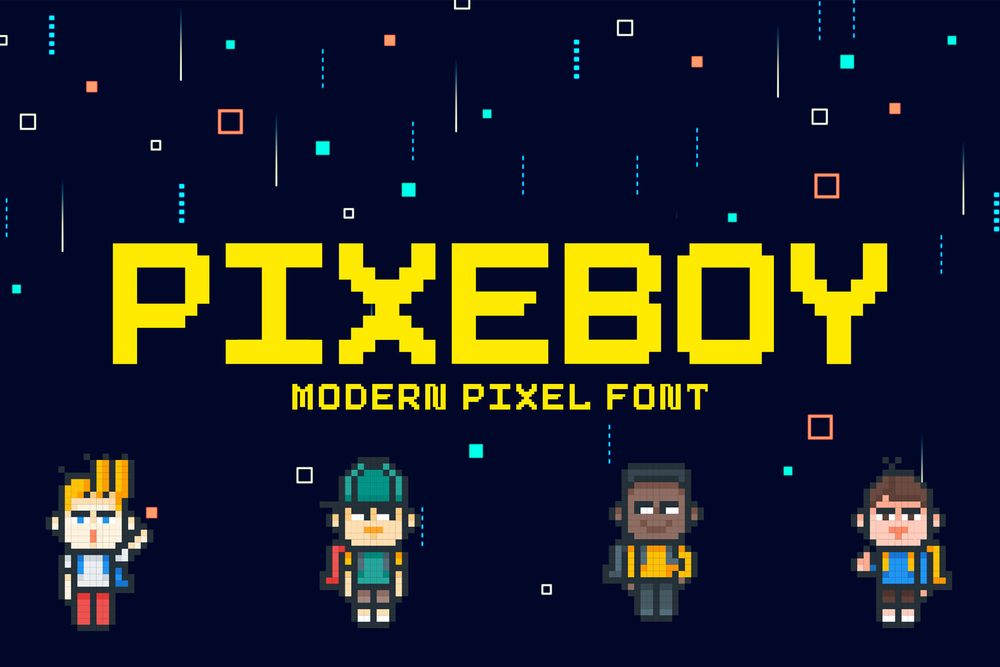
It is a modern and unique display typeface. It is suitable for any kind of display purposes such as logos, product packaging, posters, merch, branding and etc.
Uncode
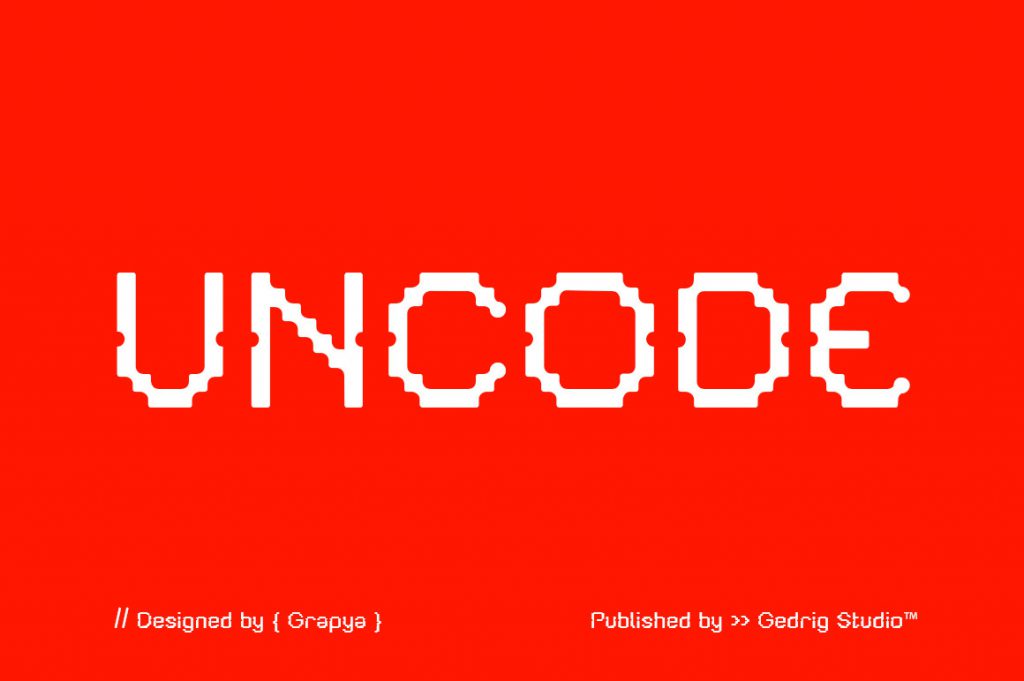
It is a font that is inspired by everyday life and rising game industry. Perfect for clothing brands, product labels, logotypes, packaging, fashion, e-sports, gaming and etc.
Game Over
It is a modern pixel style font made suitable for game purpose or other display purpose. It features a unique style and will add a unique feel to your upcoming projects.
Arcade
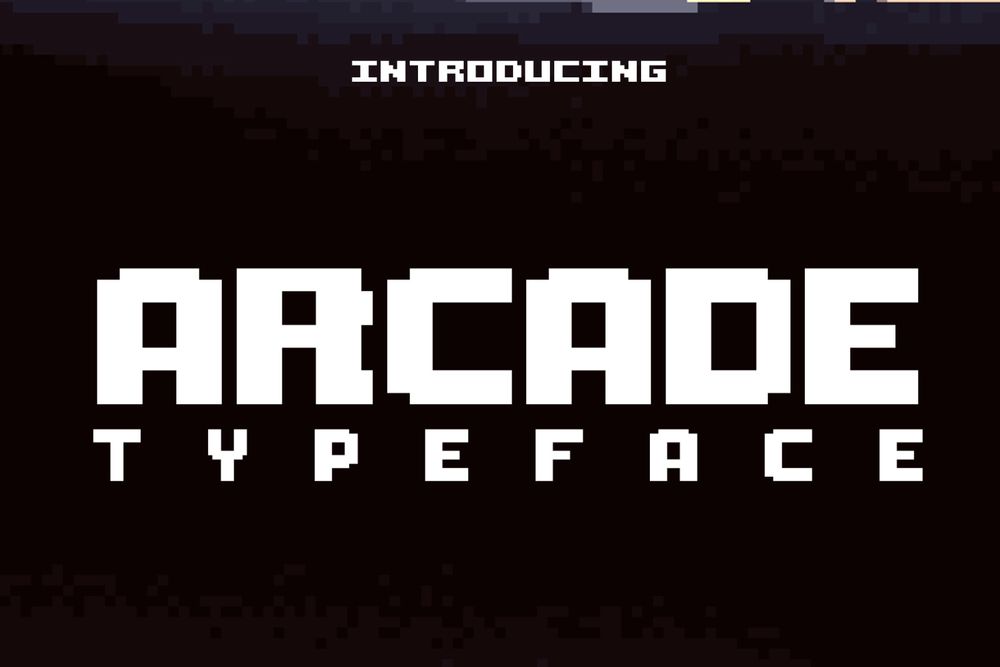
It is a fun 8-bit font full of personality that brings back the memories of old time. Perfect fit for 8-bit styled illustrations, icons, logos, posters, and t-shirts.
Woqna
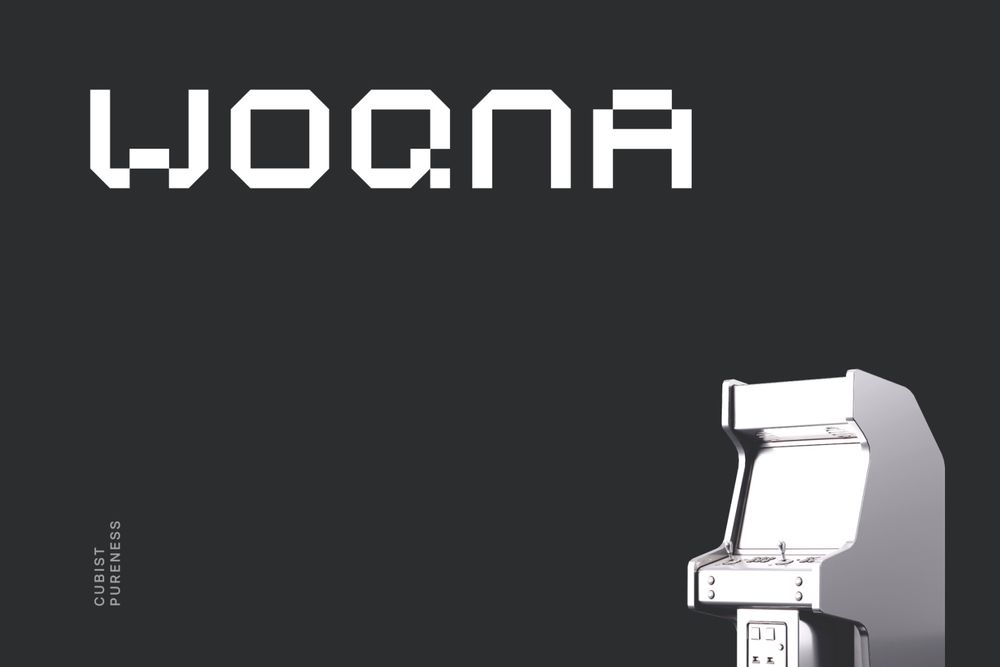
It is a cubist pureness tech sans apt font for headlines, editorial, branding, packaging, printed materials and typographic applications.
Pixel Craft
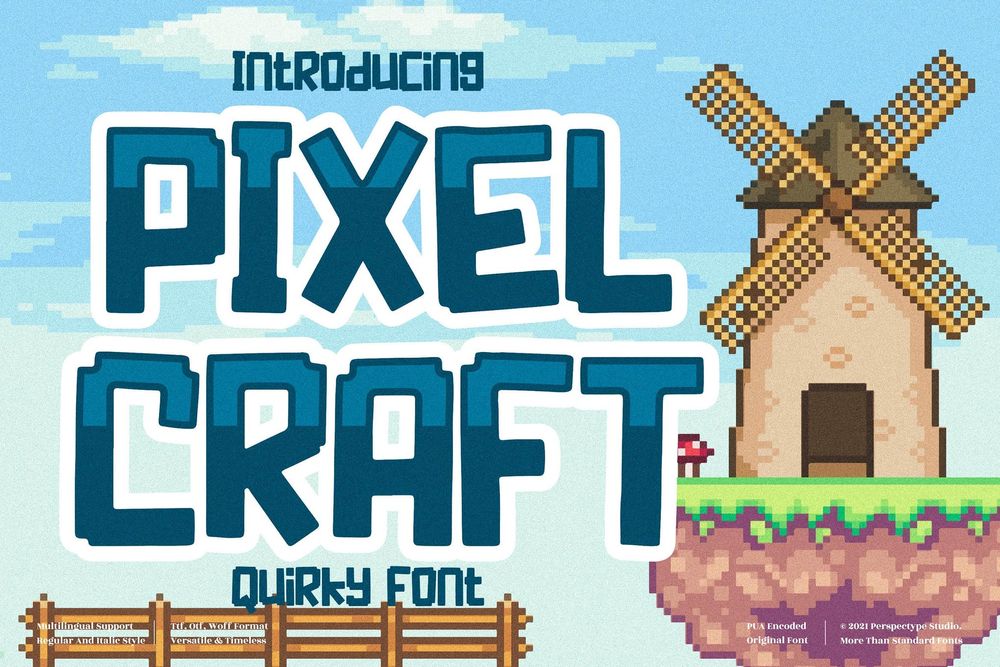
It is one of amazing fonts suitable to complement your digital and printed creative products. Perfect for posters, social media posts, branding, personal projects and etc.
Video Game
Bringing back all of that 80’s nostalgia and old good days. This font are perfect for making something look retro cool. Also included 17 pixel martians!
Broken Console
The geometric pixel font inspired by the old school game console which displaying pixel art in the game view. Ideal for specific themes like techno, digital, retro, cyberpunk, gaming and etc.
Bitbybit
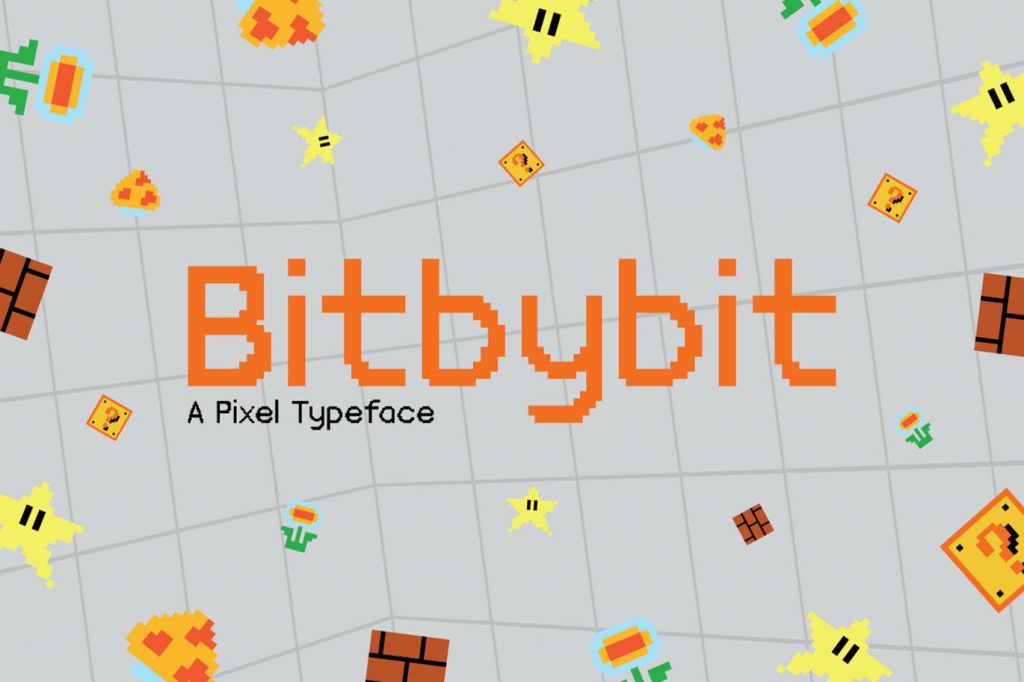
A retro pixel sans serif font comes in regular and bold styles. Best for gaming culture and retro console that live in 8bit to 32bit pixel style.
Sabo (Free)
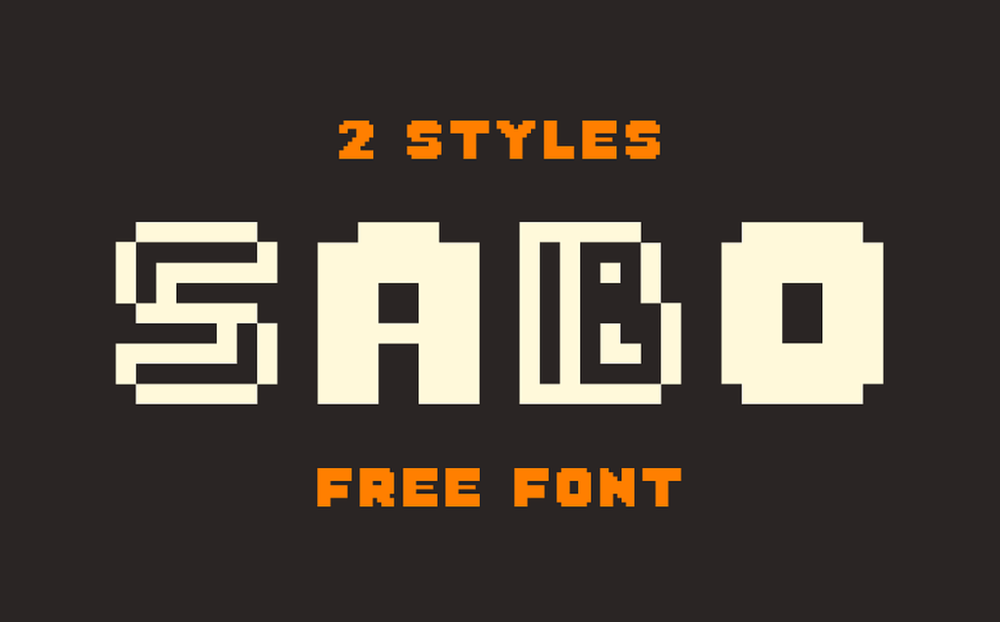
It is an amazing pixelated fonts that have two styles: filled and outlines. Perfect for gaming industry and more others.
Gorgeous (Free)
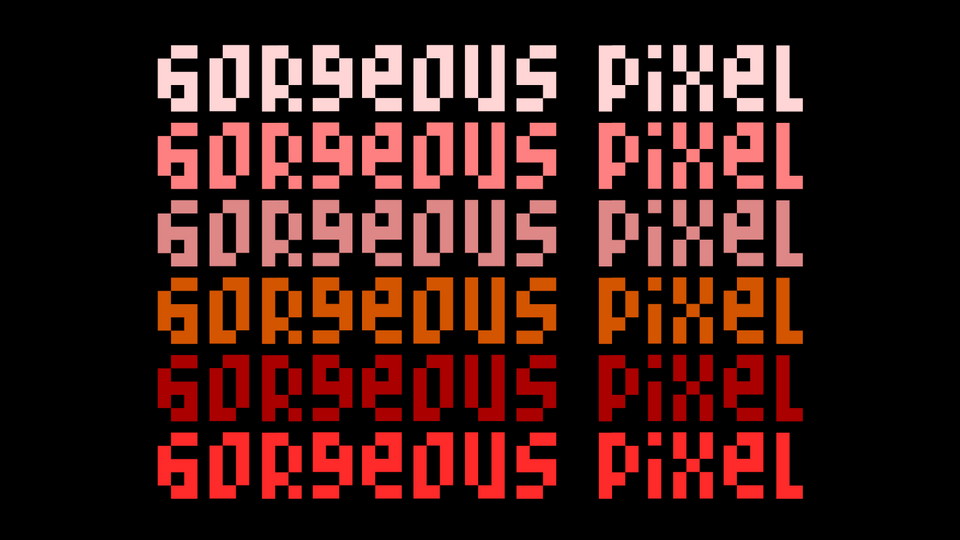
It is a minimalistic pixelated font that is perfect for gaming industry, web, apps, badges and other artworks.
Pixer (Free)
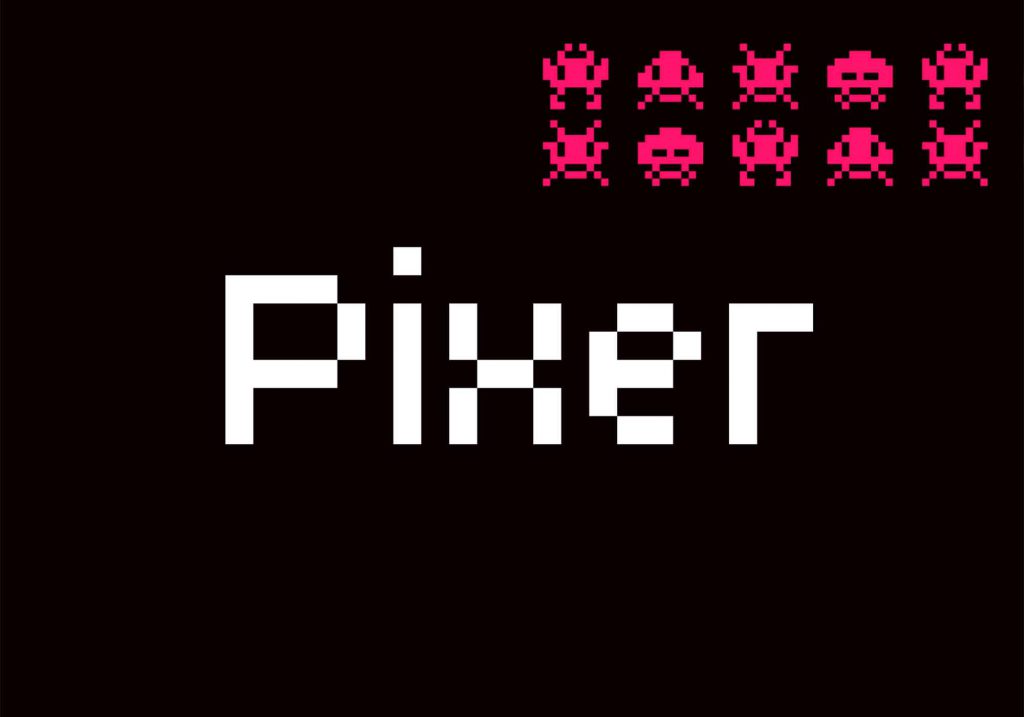
Cute free pixelated font for your amazing designs such as gaming, t-shirts, video titles, covers and etc.
Stopwatch (Free)
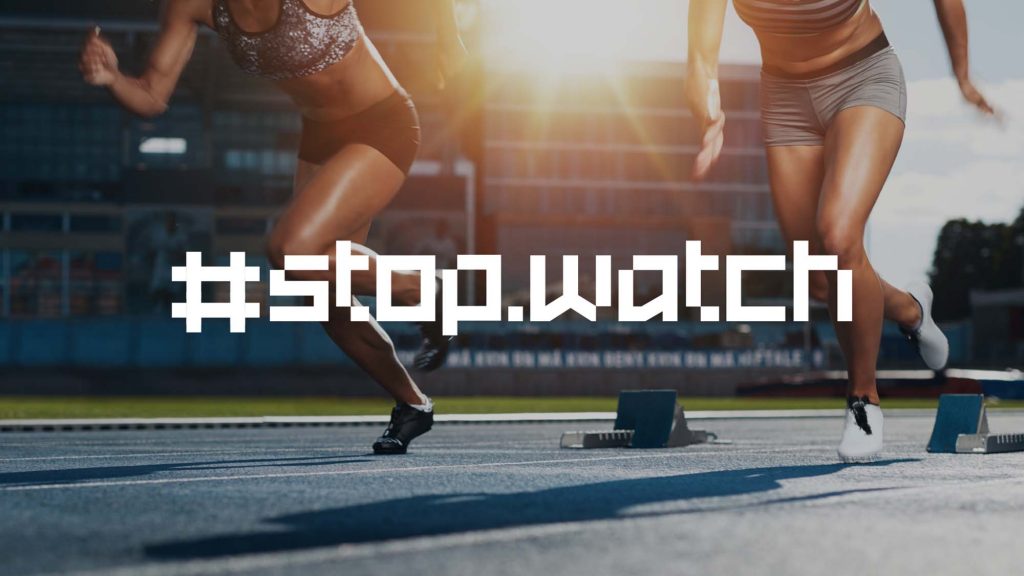
A free and good looking pixelated font for your design arts such as gaming, t-shirts, video titles, covers and etc.
Mistry Box
It is heavy bold display font, perfectly fits for big titles, branding, logos and more.
Waves Chunky CPC
It’s large , chunky and can fit in a lot of your retro looking designs such as gaming, video titles, covers, t-shirts and etc.
Chubby Choo
It is a retro bitmap typeface. Perfectly going for gaming, posters, covers, video titles and etc.
Rixel (Free)
It is a nice pixelated free font for your design projects such as gaming, video titles, posters, covers and etc.
PixBob Lite (Free)
It is a font that is designed to make it easier to design 8bit or pixel. This font is designed cleanly and precisely so it’s easy to read, looks elegant and easy to apply to your pixel project.
Pixelion
This perfect pixelated font is created for games, web design, branding and social media works.